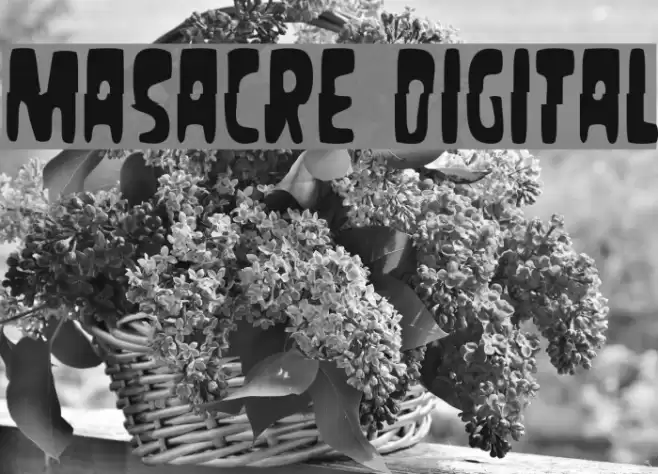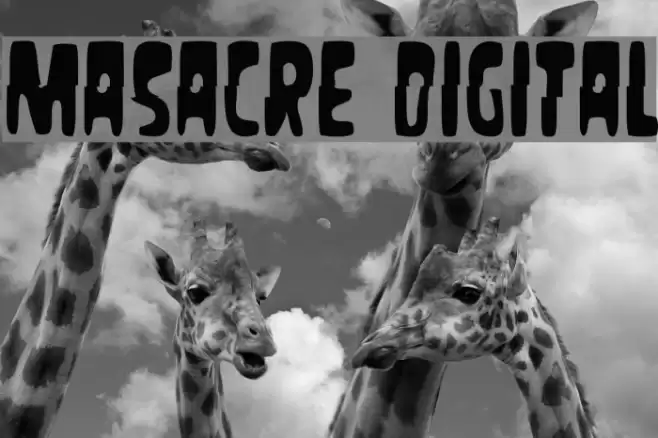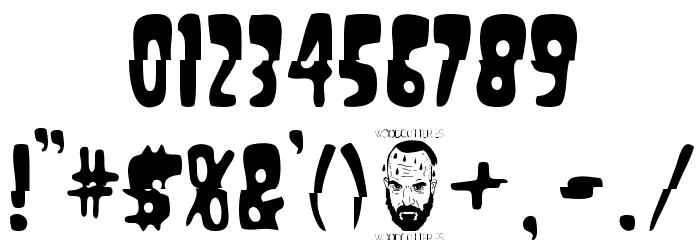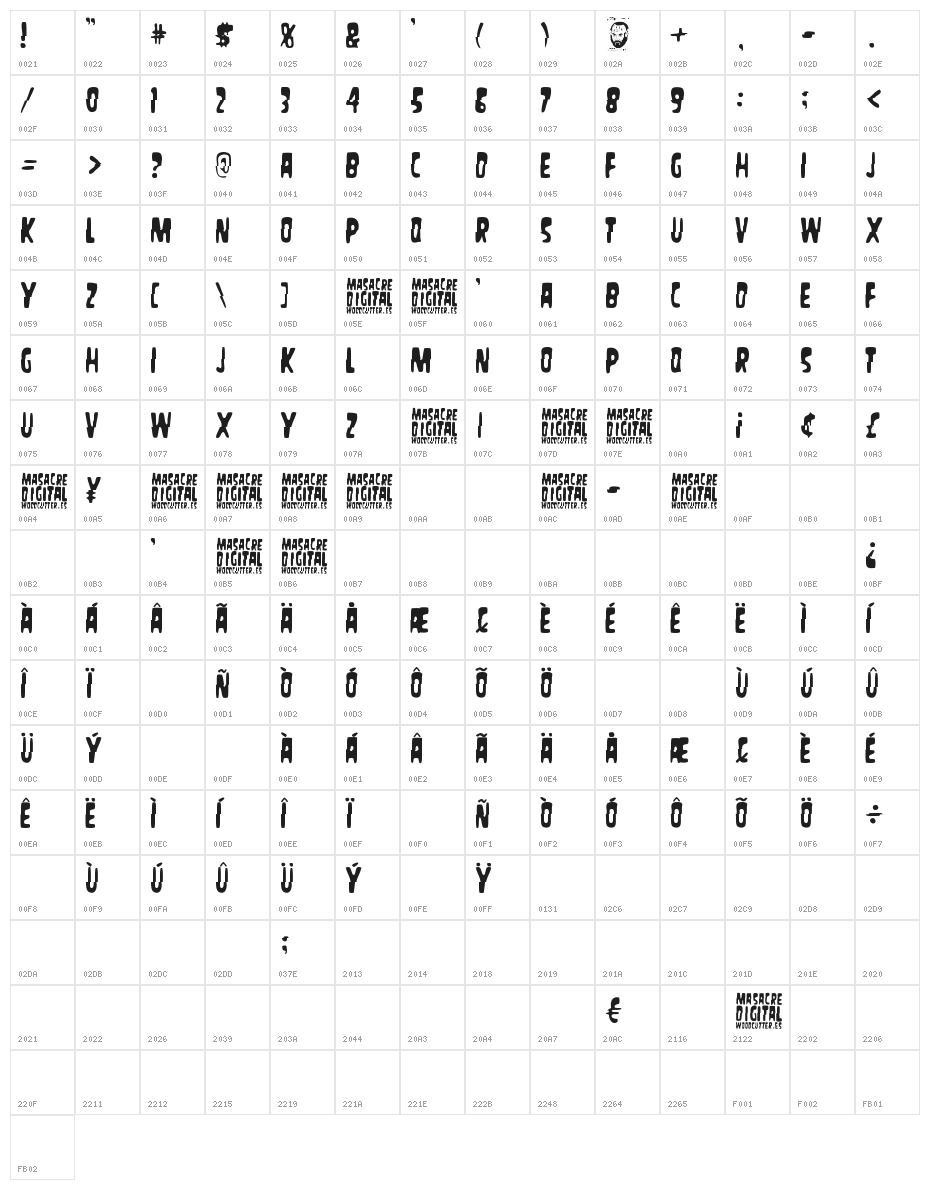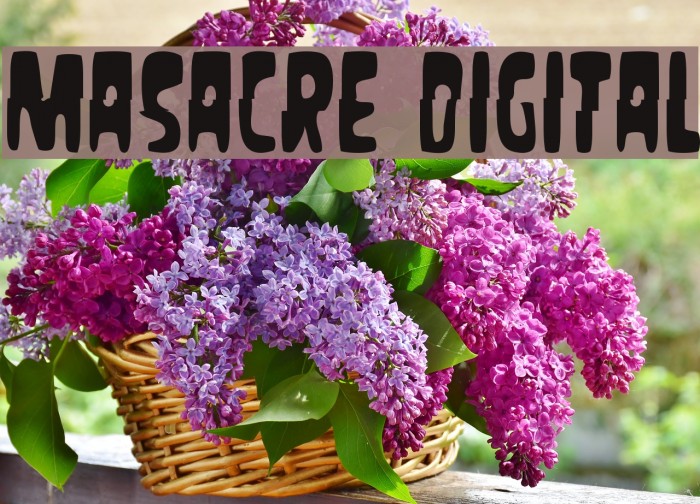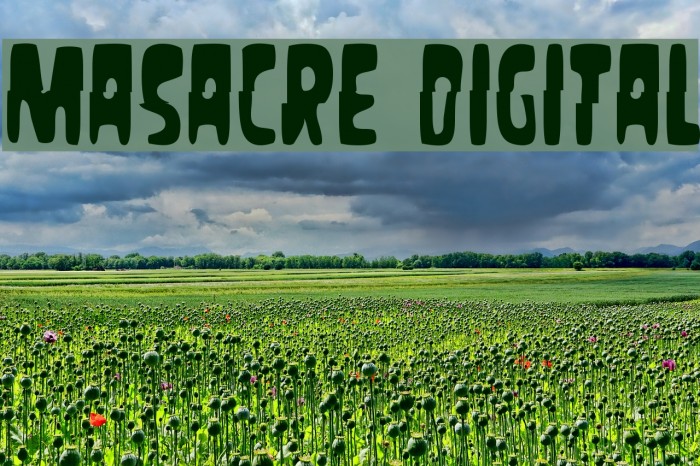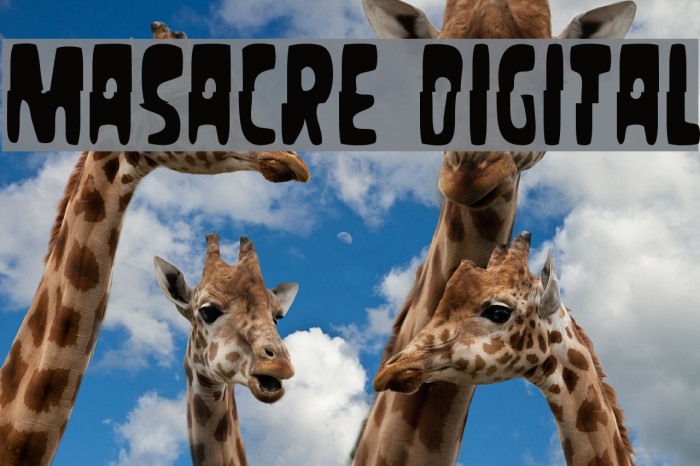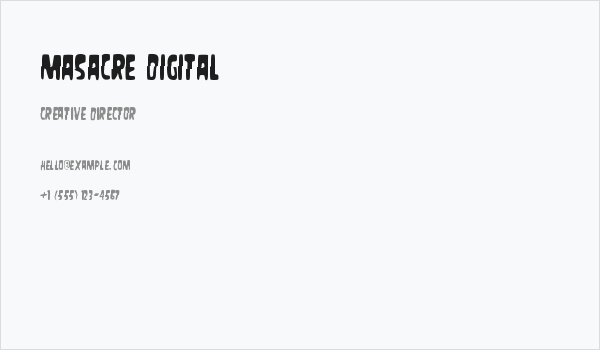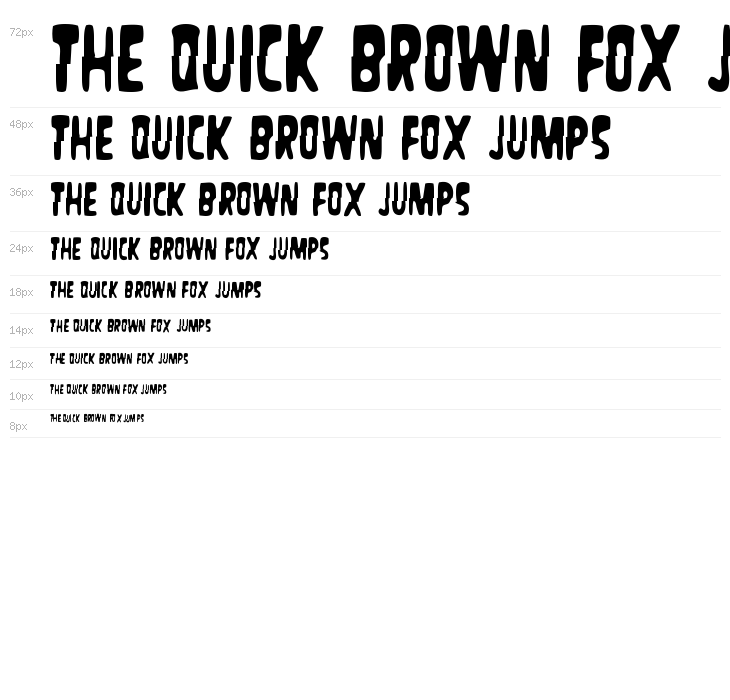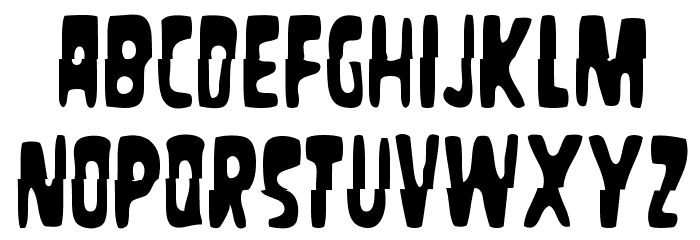
Masacre Digital Font
Masacre Digital Description
This font features a bold and heavy design with a distressed, grunge-like appearance. The characters are thick and have irregular edges, giving them a rugged and raw aesthetic. The uppercase and lowercase letters maintain a consistent weight, contributing to a cohesive look. Numbers and special characters follow the same style, ensuring uniformity across all elements. The font's unique style makes it stand out, with a strong presence that commands attention. Its design is reminiscent of urban street art or graffiti, making it suitable for projects that require a bold and edgy feel.
A bold, distressed font with a grunge aesthetic and irregular edges from Distorted Eroded fonts.
- Proposed Projects: Ideal for album covers, poster designs, streetwear branding, and urban-themed artwork.
- Overall Style: Grunge, Urban, Edgy